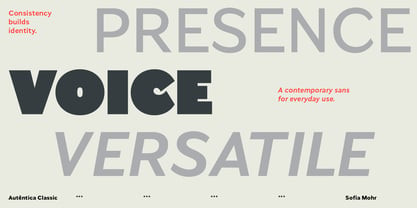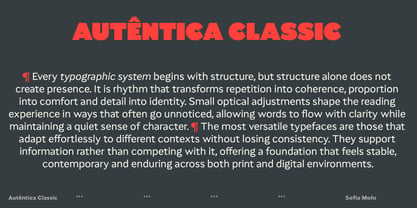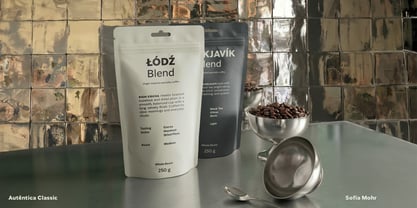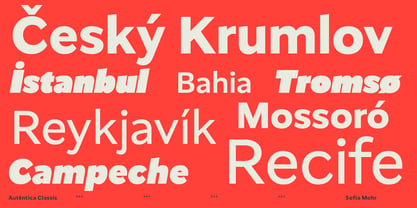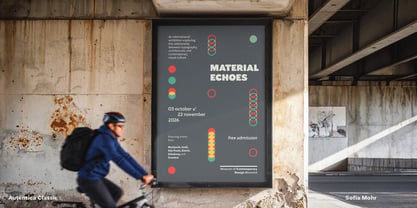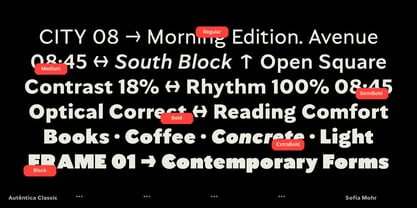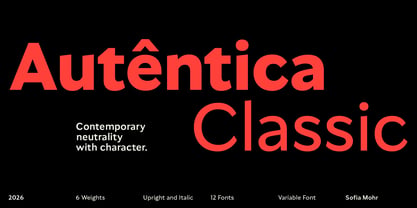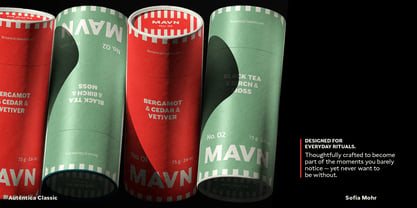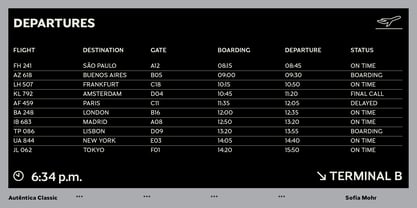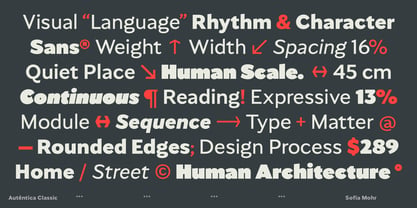
Autêntica Classic
by Sofia Mohr
Autêntica Classic is a contemporary sans serif built on a simple idea: personality doesn’t have to compete with clarity.
Developed as the natural evolution of Autêntica Sans, it reduces the contrast of the original design to create a calmer, more versatile voice while preserving the diagonal cuts, confident character, and unmistakable DNA of the family.
Created as a more neutral interpretation of the original concept, Autêntica Classic expands the system from 6 weights to 12 styles, plus a Variable font, introducing italics for the first time. Its more restrained design naturally called for a broader typographic palette, making it equally suited to editorial design, branding, user interfaces, corporate communication, signage, and long-form text.
Rather than pursuing absolute neutrality, Autêntica Classic finds a thoughtful balance between functionality and character. Refined proportions, open forms, carefully controlled spacing, and subtle details create a typeface that feels clear, dependable, and expressive. Signature diagonal terminals and the unexpected angled cuts of the C and c quietly challenge the conventions of the contemporary sans serif, giving the family a recognizable voice that reveals itself over time rather than through decoration.
Built to adapt across a wide range of applications, Autêntica Classic brings together clarity, consistency, and character in a cohesive type system. It is a typeface designed to support content with confidence, offering a distinctive identity without ever competing for attention.
Quietly distinctive. Endlessly versatile.